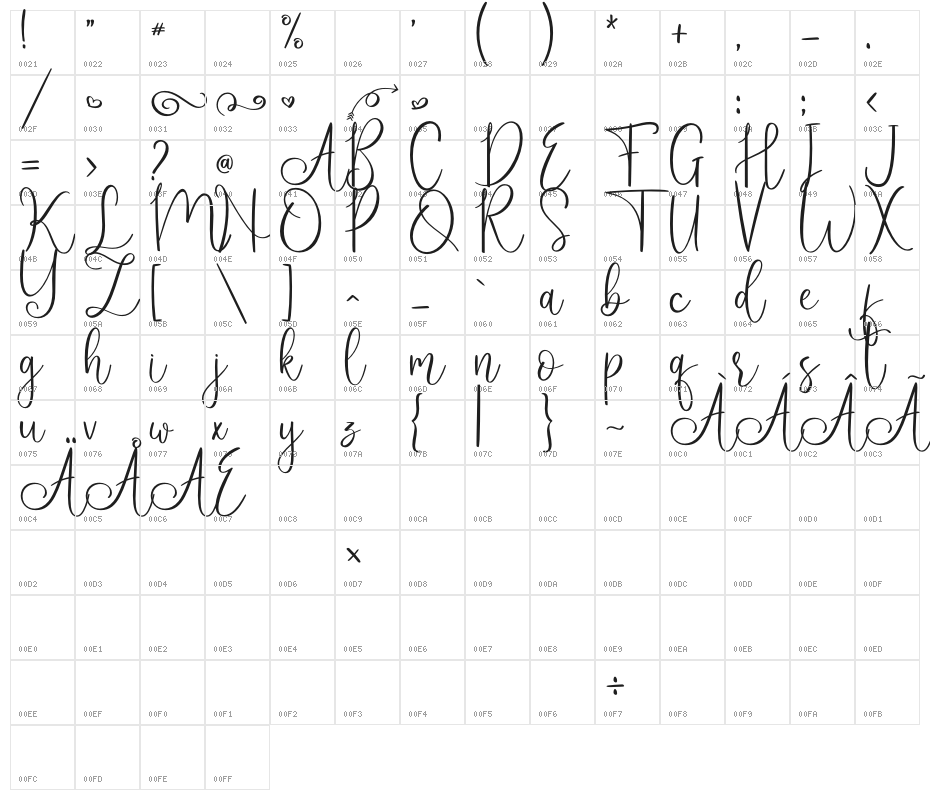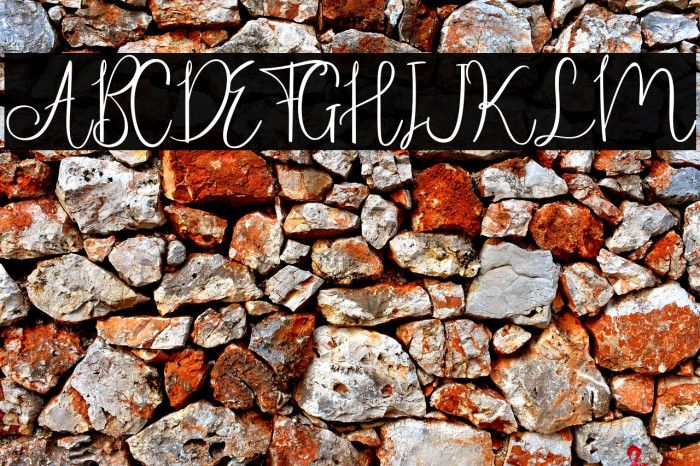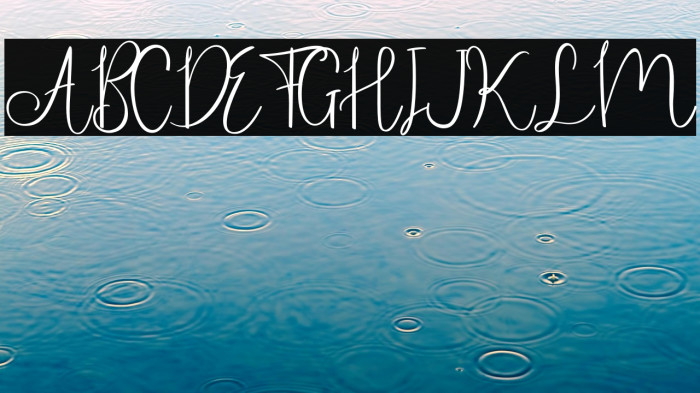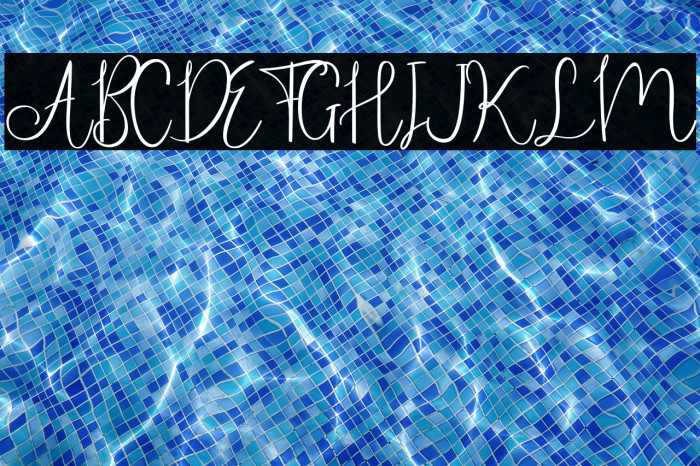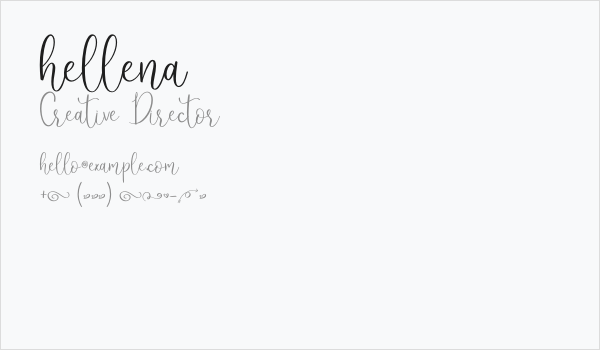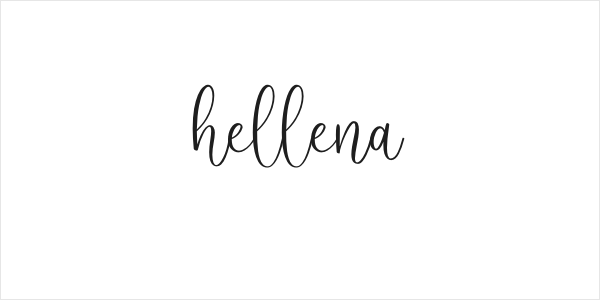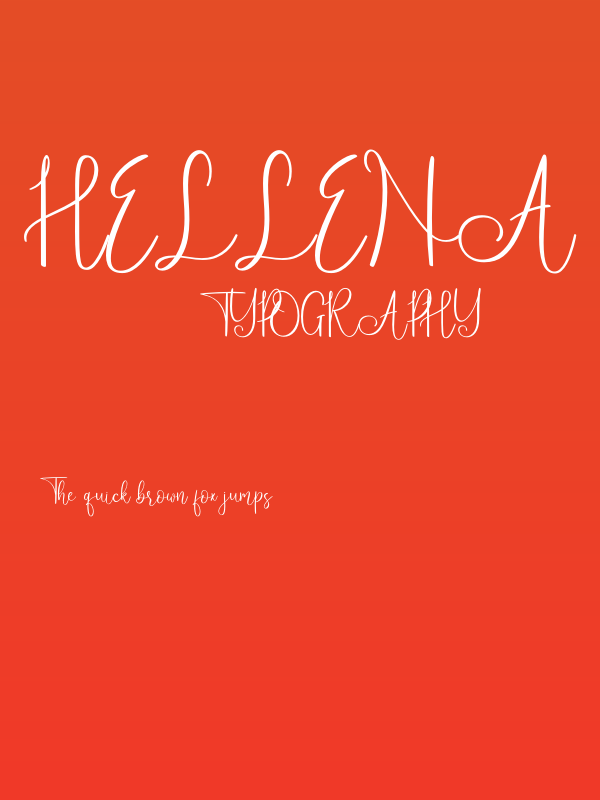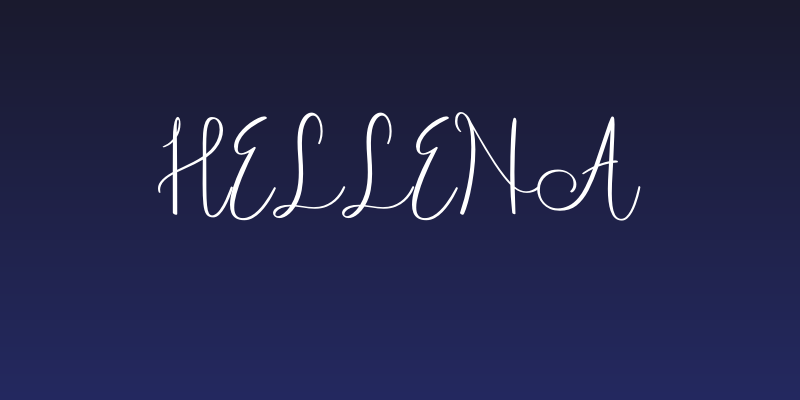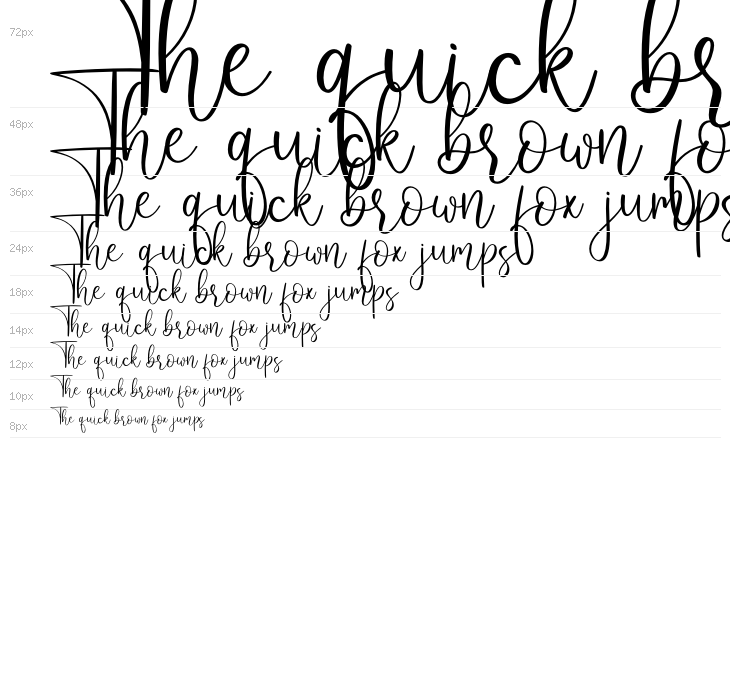
hellena Font
hellena Description
This font features an elegant, flowing script style with a handwritten appearance. The uppercase letters are characterized by their sweeping curves and loops, giving them a graceful and sophisticated look. The lowercase letters maintain a consistent style, with some letters extending below the baseline, adding to the font's dynamic nature. The numerals and special characters are designed to match the overall aesthetic, with similar flourishes and curves. This font is ideal for projects that require a personal touch, such as invitations, greeting cards, or branding materials.
| Overall Style | Elegant, Handwritten |
| Use Case | Headlines, Logos, Invitations |
| Proposed Projects | Ideal for invitations, greeting cards, branding, and personal projects. |